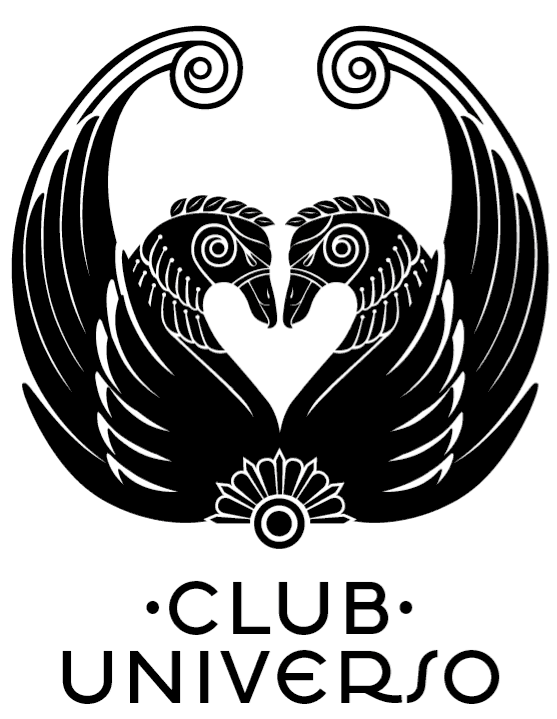
Some of the projects we have performed
include:
Anarrosa 2006. This typography was requested by writer and
humorist Roberto Fontanarrosa. The development of this typography
started based on the analysis of his writings so as to digitalize
signs at a later stage, being respectful of their morphology although
simplifying their shape so as to optimize thir use. To complete this
set of characters, it was necessary to generate non existing signs.
Anarrosa was used to create texts to match the humour-filled writings
by Fontanarrosa published in daily Clarín and ,on Sundays,and
in Viva magazine, which corresponds to the same newspaper.
Handwriting
for wine labels Calligraphic system for complete line of varietals of warehouse
export the Arrayanes de Catena Zapata.
Club Universo
Typeface design for a special club inside the Faena Hotel,
for designer Mariana Pariani.
Brand
for Ernesto Catena Vineyards
Cradle in one capital Roman was tried to look for small details to
give force to the brand, the untidiness of the outline and spaced
was looked for to give one impronta of artisan and nonprofessional
brand.